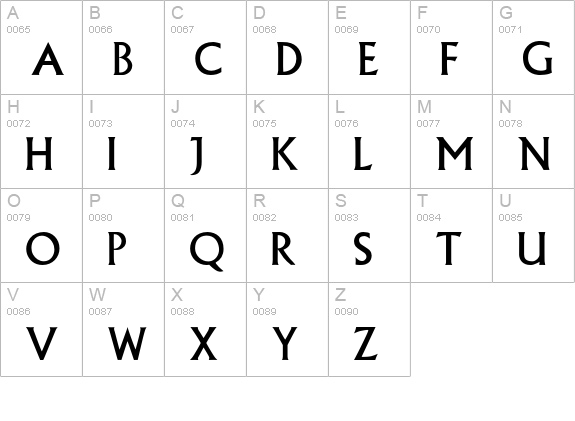
Village Plain font is a versatile and elegant typeface that effortlessly captures the essence of a quaint village setting. With its clean lines and timeless design, this font brings a touch of rustic charm to any project. Whether you're designing a logo, creating a vintage-inspired poster, or crafting a wedding invitation, Village Plain font adds a touch of nostalgia and warmth. This font is available for free download at FontsMarket.com, making it easily accessible for anyone in need of a high-quality typeface. With a simple click, you can enhance your designs with this beautiful font, without having to worry about any additional costs. Village Plain font gives you the freedom to bring your creative visions to life, without any limitations. With its wide range of characters and stylish alternates, Village Plain font offers a multitude of design possibilities. The clean and legible letterforms make it perfect for both large-scale projects and smaller text elements. Its versatility allows it to seamlessly fit into various design styles, from vintage to modern, adding a touch of sophistication to your work. The Village Plain font is not only visually appealing but also easy to work with. Its well-crafted curves and balanced proportions ensure a smooth and harmonious reading experience. The attention to detail in each character showcases the dedication and craftsmanship behind this font. Incorporate Village Plain font into your next design project and watch as it effortlessly elevates your creations. With its timeless appeal and freely available download at FontsMarket.com, this font is a must-have for any designer looking to add a touch of rustic elegance to their work. Embrace the charm of a village setting and let Village Plain font inspire your creativity.